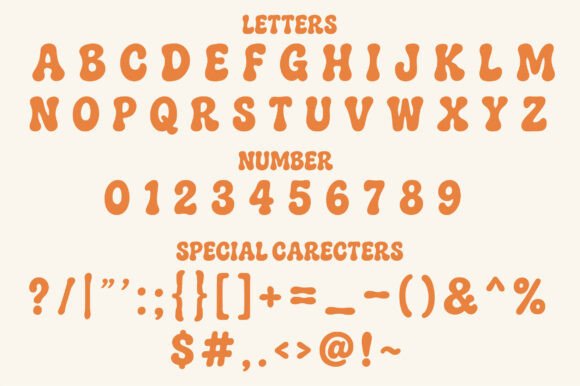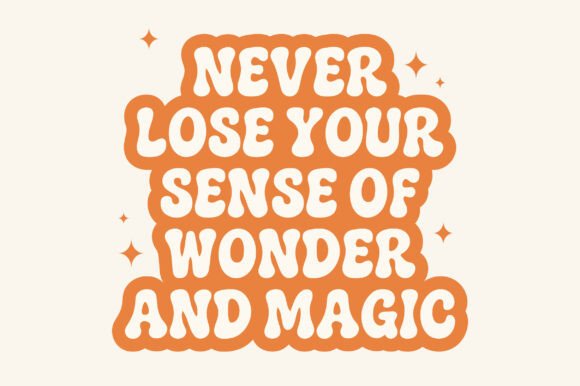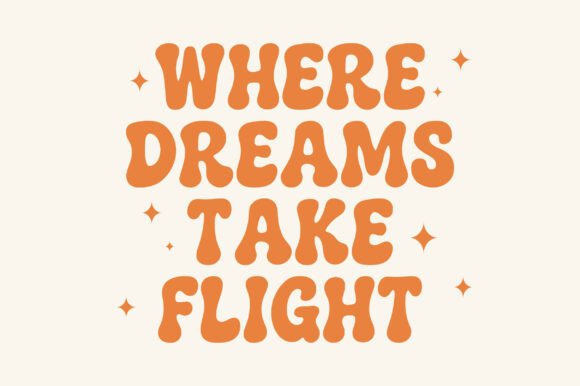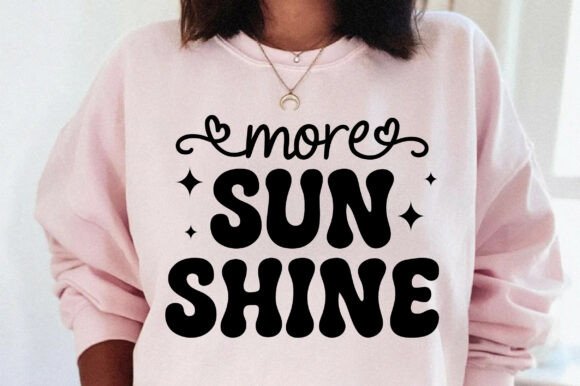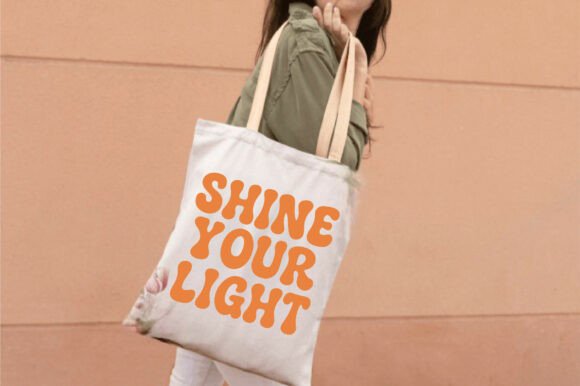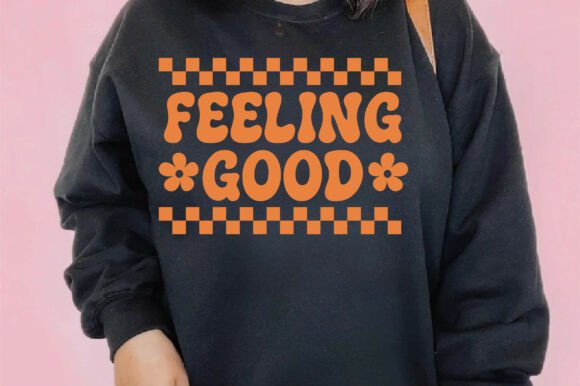
Discover the Funky Bloom Font: A Playful Retro Bubble-Style Delight
I’ll never forget the design project that led me to Funky Bloom. I was working on a fun kids’ poster, and my client asked for a font that was “retro, bubbly, and playful.” I scoured the internet, trying out font after font, but nothing seemed quite right. That was until I stumbled upon Funky Bloom – a charming, 70s-inspired font that instantly brought my design to life. In this article, I’ll share my love for Funky Bloom, its features, and how to make the most of it in your designs.
A Personal Review: What I Love About Funky Bloom
Funky Bloom has quickly become one of my go-to fonts, and here’s why:
- ✨ Soft curves and organic shapes: Each letter has a fun, rounded blob aesthetic that adds personality to any design.
- ✅ Consistent stroke weight: The font has a smooth, even look that works beautifully in both print and digital projects.
- ✅ Warm nostalgic feel: Funky Bloom instantly brings to mind the fun, carefree vibe of the 1970s.
- ✅ Perfect for various design projects: From headings and T-shirt quotes to stickers, kids’ projects, posters, and branding, Funky Bloom is an incredibly versatile font.
While Funky Bloom is an amazing font, there are a few minor things to keep in mind:
- 🤔 Limited use in formal designs: Funky Bloom’s playful nature makes it less suitable for formal or professional projects that require a more serious tone.
- ⚠️ Legibility at small sizes: As with many script fonts, Funky Bloom may become less legible at very small sizes (under 10-12 points).
The Designer Inspiration Behind Funky Bloom
While the true story behind Funky Bloom’s creation remains a mystery, it’s easy to imagine a designer in the 1970s, surrounded by vinyl records, vintage posters, and retro gadgets. Inspired by the era’s playful, carefree spirit, they crafted Funky Bloom as a love letter to the decade of disco, bell-bottom jeans, and Saturday morning cartoons.
| Font Name | Funky Bloom Font |
| Author | Meow Creation |
| What type of projects is Funky Bloom best suited for? | Funky Bloom is perfect for designs that require a playful, retro touch, such as kids’ projects, posters, T-shirt quotes, stickers, and branding. |
| Is Funky Bloom available in different weights or styles? | Currently, Funky Bloom is available as a single font, but its versatility and range of OpenType features make it suitable for various design applications. |
In conclusion, Funky Bloom is a delightful font that brings a touch of retro fun to any design. With its playful curves, organic shapes, and warm nostalgic feel, it’s the perfect addition to your design toolkit. So go ahead, give Funky Bloom a try, and let its bubbly personality shine in your next project!